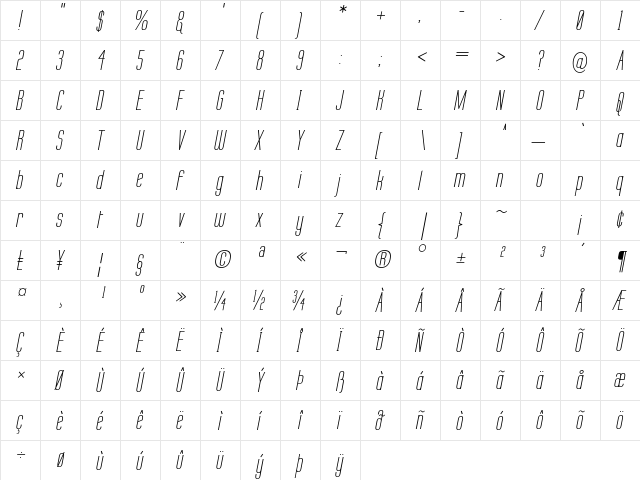
Labtop Italic
Design Context for Labtop Typeface
Labtop offers clean, dependable letterforms without strong stylistic allegiance, making it a practical choice for designers who need flexibility. The slanted form adds forward momentum and visual energy.
Pro Tip: Try Labtop for annotation and caption copy alongside an upright companion — the contrast in angle creates a dynamic but ordered typographic system.